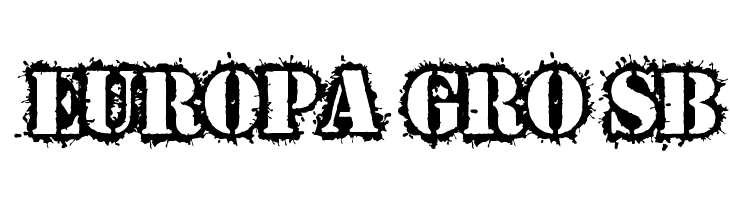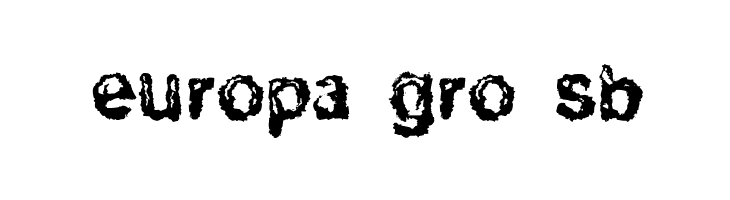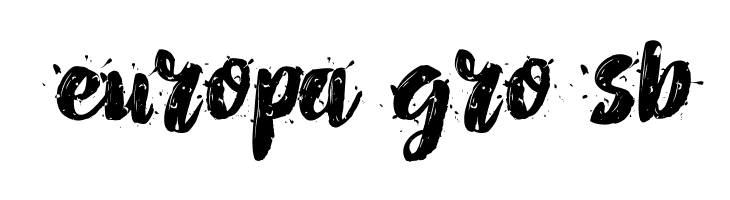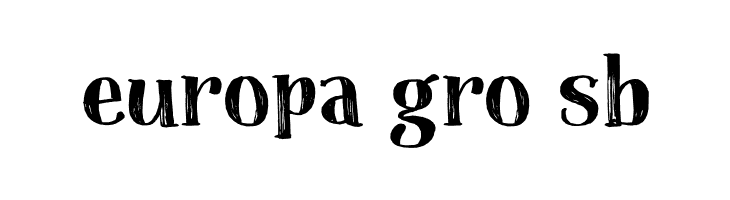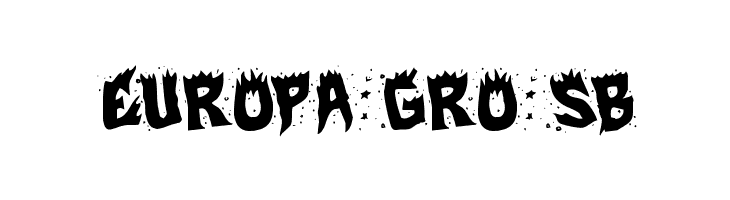
A grungy, distressed font with a chaotic, hand-drawn style.
A bold, expressive brush-style font with a rough, handcrafted appearance.
A playful, hand-drawn font with textured, brush-like strokes.
A bold, distressed font with a horror-inspired, brush-stroke appearance.
A bold, distressed font with a gritty, hand-painted style.
A grungy, distressed font with a hand-painted, chaotic style.
A bold, jagged font with a distressed, grunge-like appearance.
A distressed, hand-drawn font with irregular edges and an artistic flair.
A hand-drawn, brush-style font with irregular edges and dynamic strokes.
A bold, artistic font with an ink-like, fluid appearance.